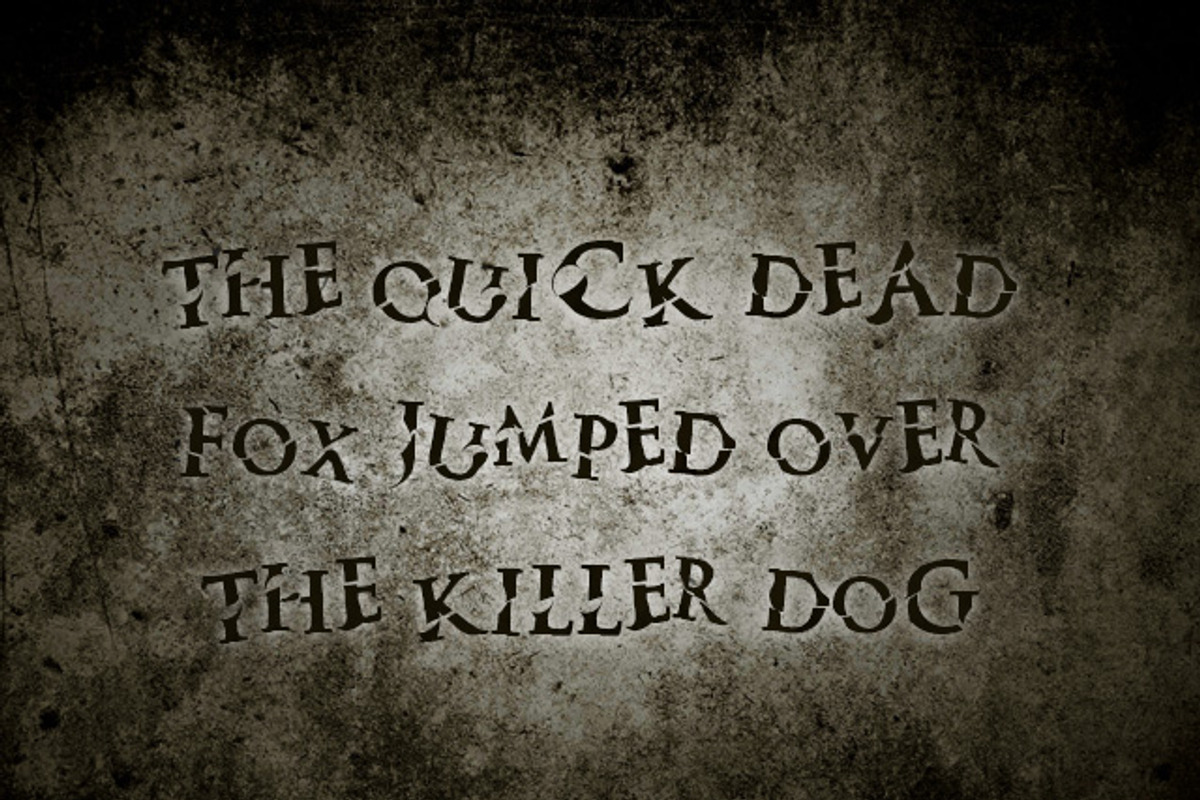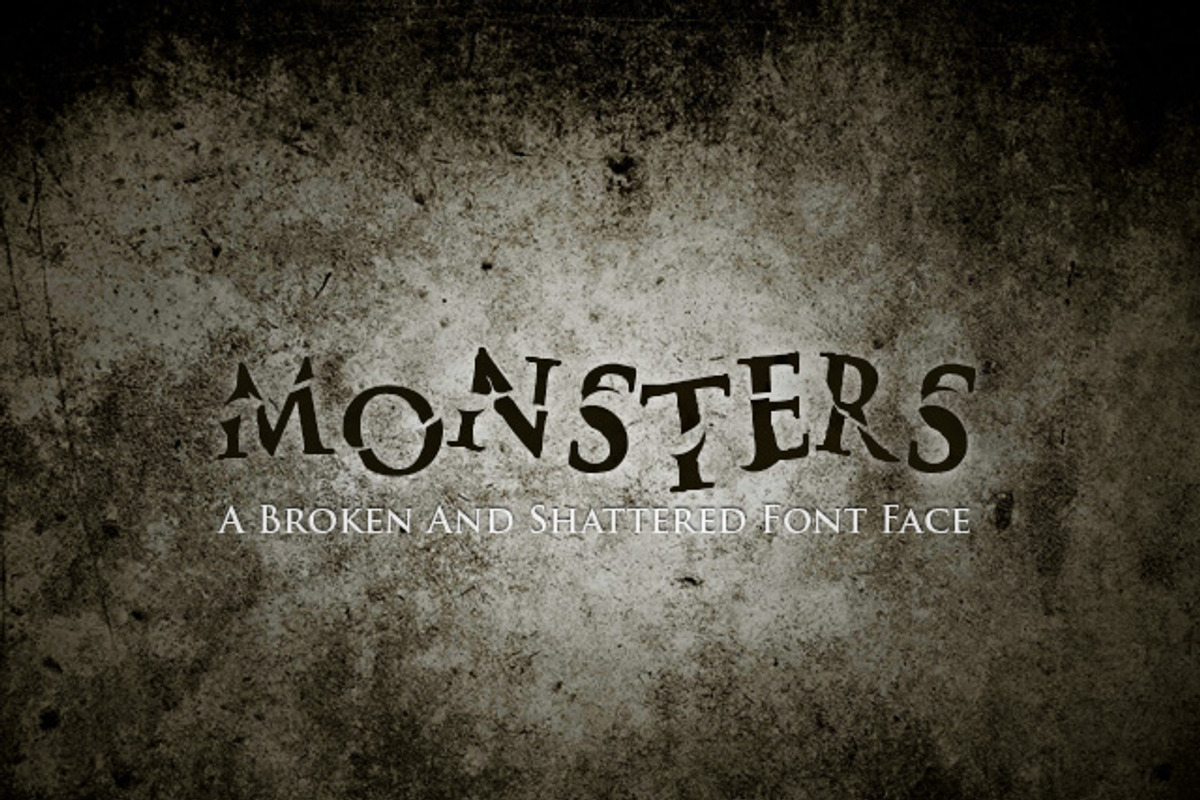
Monsters Font
Monsters Font by Medialoot is a font selected for branding, posters, packaging, typography.
Why Monsters Font is worth a look
Monsters Font by Medialoot fits naturally into Branding, posters, packaging, typography.